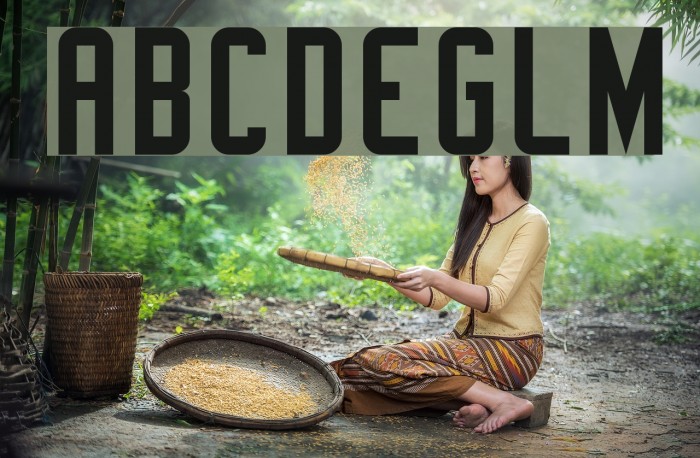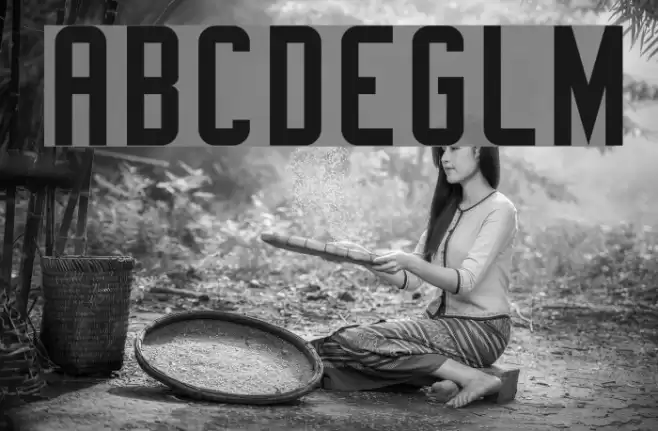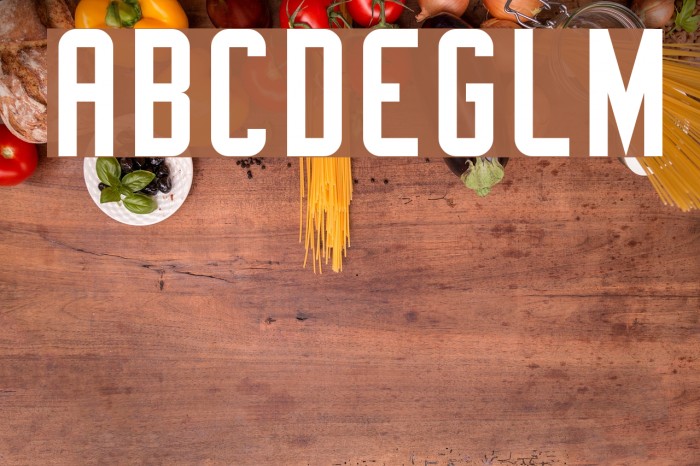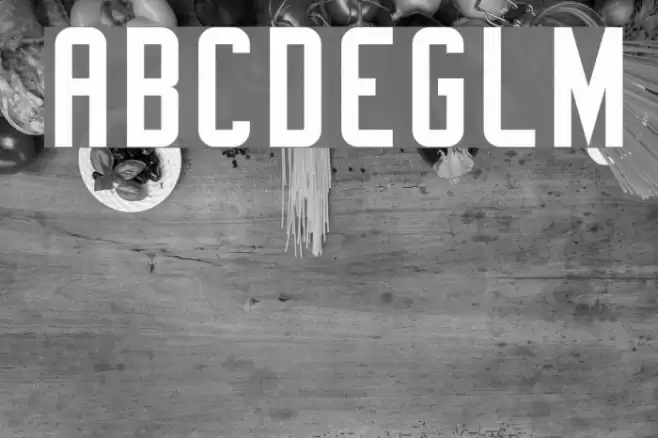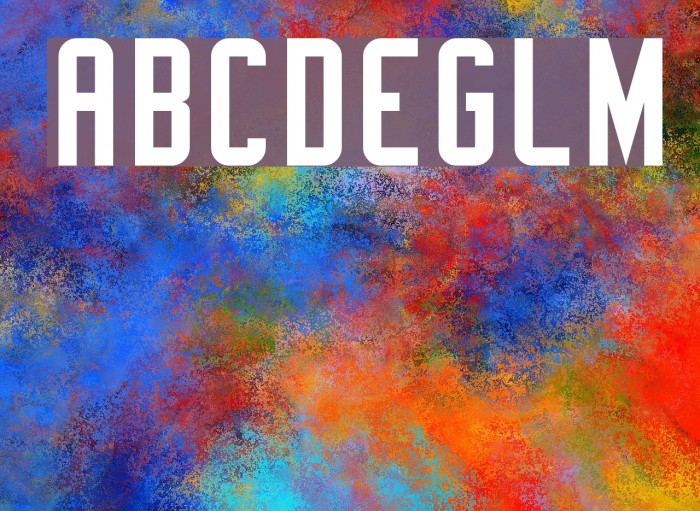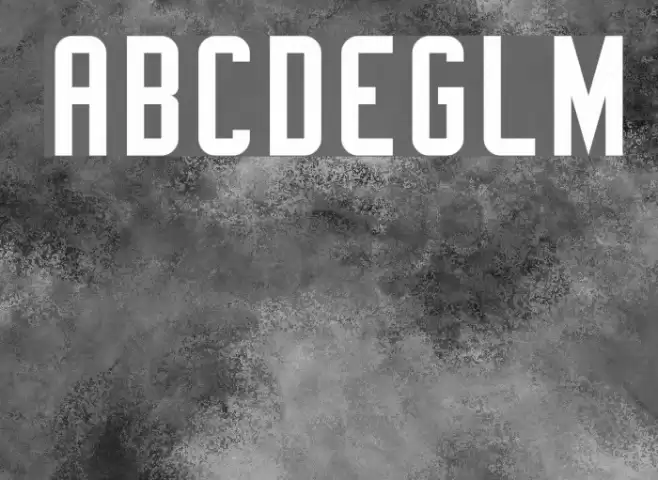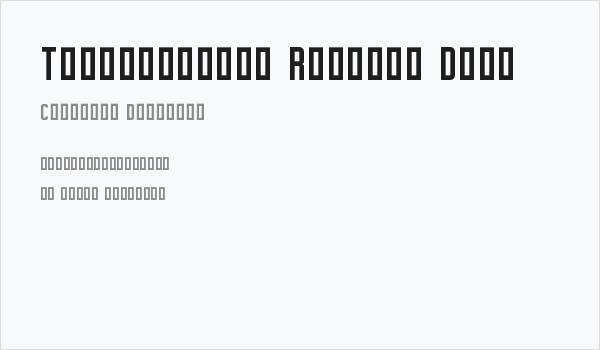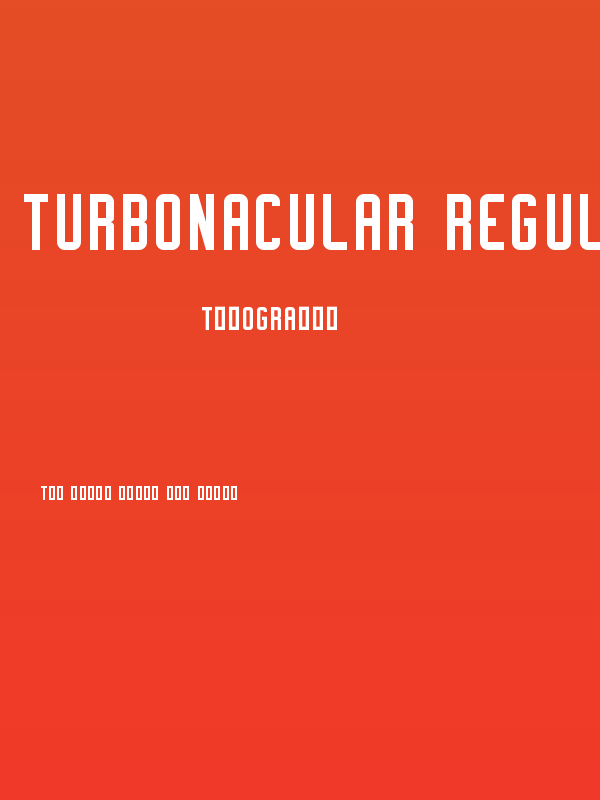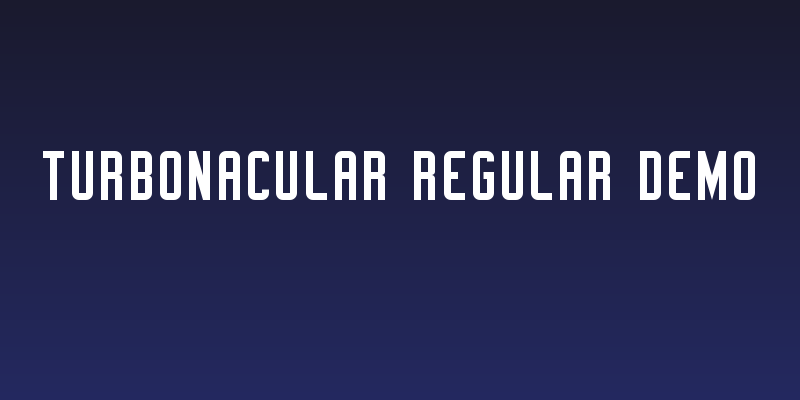
Turbonacular Regular Demo Font
Turbonacular Regular Demo Description
This font features a bold, geometric design with a strong emphasis on rectangular shapes and sharp angles. The characters are uniformly structured, creating a cohesive and modern appearance. The uppercase and lowercase letters maintain a consistent height, contributing to a monospaced feel. The numbers and special characters follow the same design principles, ensuring a seamless integration across all glyphs. The font's high contrast and thick strokes make it highly legible and impactful, suitable for various design applications.
| Proposed Projects | Ideal for branding, posters, headlines, and digital interfaces where a modern and impactful look is desired. |